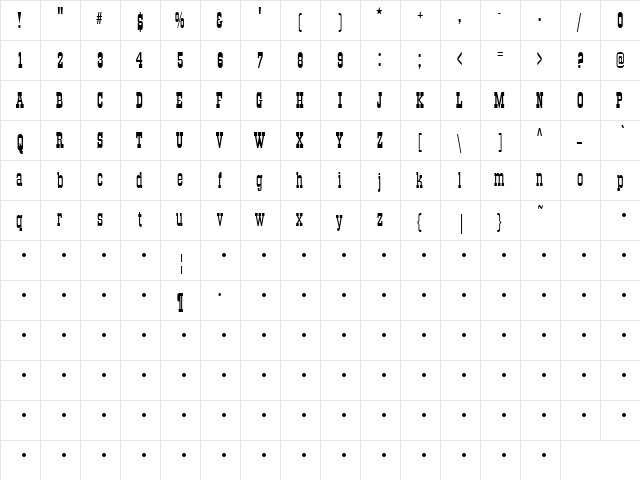
QTOKCorral-Cnd Regular
Design Context for QTOKCorral-Cnd Typeface
QTOKCorral-Cnd is a composed and adaptable typeface that performs quietly and consistently across a wide range of design contexts.